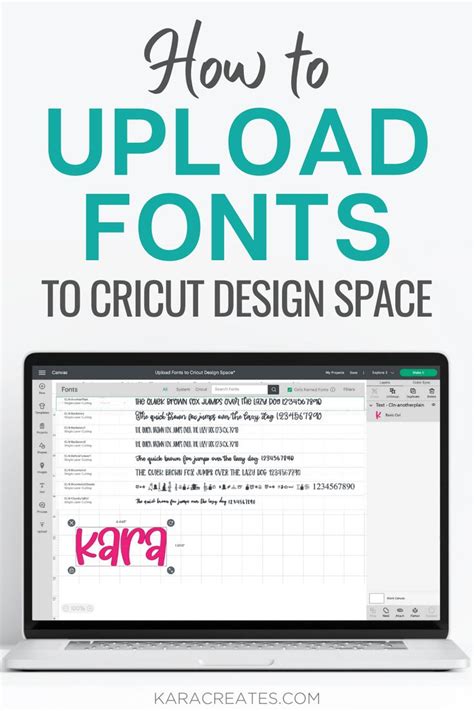
Unlock the Secrets of Using Fonts in Cricut Design Space!
Introduction
If you are a Cricut user, you know that using fonts in Design Space is a must. Fonts allow you to create professional looking projects with ease and without having to spend a fortune on design software. However, unlocking the secrets of using fonts in Cricut Design Space can be a challenge. In this article, we will discuss the basics of font selection, formatting, and more so that you can start creating amazing projects with your Cricut.
Choosing the Right Font
The first step in creating a beautiful project with Cricut is to choose the right font. There are two main types of fonts – serif and sans serif. Serif fonts are the traditional typefaces with small lines or “feet” on the ends of the letters. Sans serif fonts are more modern, with no lines or “feet” on the ends of the letters. Depending on your project, you may want to choose a font that fits the overall look you are trying to achieve.
Formatting Fonts
Once you have chosen the font for your project, the next step is to format it. In Cricut Design Space, you can adjust the size, color, and other features of the font for maximum impact. You can also add effects such as shadows, outlines, and gradients to make the font stand out. Experiment with different formats to find the one that works best for your project.
Combining Fonts
One of the great things about Cricut Design Space is that you can combine fonts to create unique designs. For example, you could use a bold display font for the main title and a more subtle script font for the subtitle. Or, you could pair a traditional serif font with a modern sans serif font to create a unique look. Experiment with combining different fonts to find the perfect combination.
Working With Special Characters
Many fonts come with special characters, such as swashes, ligatures, and alternates. These can add a unique touch to your project, but it can be difficult to figure out how to use them. Fortunately, Cricut Design Space makes it easy to access and use special characters. Just click on the font in the Layers panel and click on the “Special Characters” button. From there, you can access all of the special characters associated with the font.
Working With Fonts on Different Materials
When working with fonts in Cricut Design Space, it is important to remember that the same font may look different depending on the material you are using. For example, a font may look crisp and clean on paper, but may be too thin or too thick on fabrics or other materials. It is important to test out the font on different materials before committing to a design.
Creating Your Own Fonts
If you are feeling creative, you can also create your own fonts in Cricut Design Space. This is a great way to add a personal touch to your projects. You can use any shapes or symbols you like to create your own unique font. You can also adjust the size and other properties of the font to create the perfect look.
Example
For example, if you want to create a greeting card, you could use the font “Nexa Bold” for the main title and “Cursive” for the subtitle. You could then adjust the font sizes, colors, and effects to create a unique and eye-catching design.
Point of View
Using fonts in Cricut Design Space is a great way to add a professional touch to your projects. It is easy to get creative and customize fonts to create a unique look. With a bit of experimentation, you can create amazing projects with fonts that will make your work stand out from the rest.